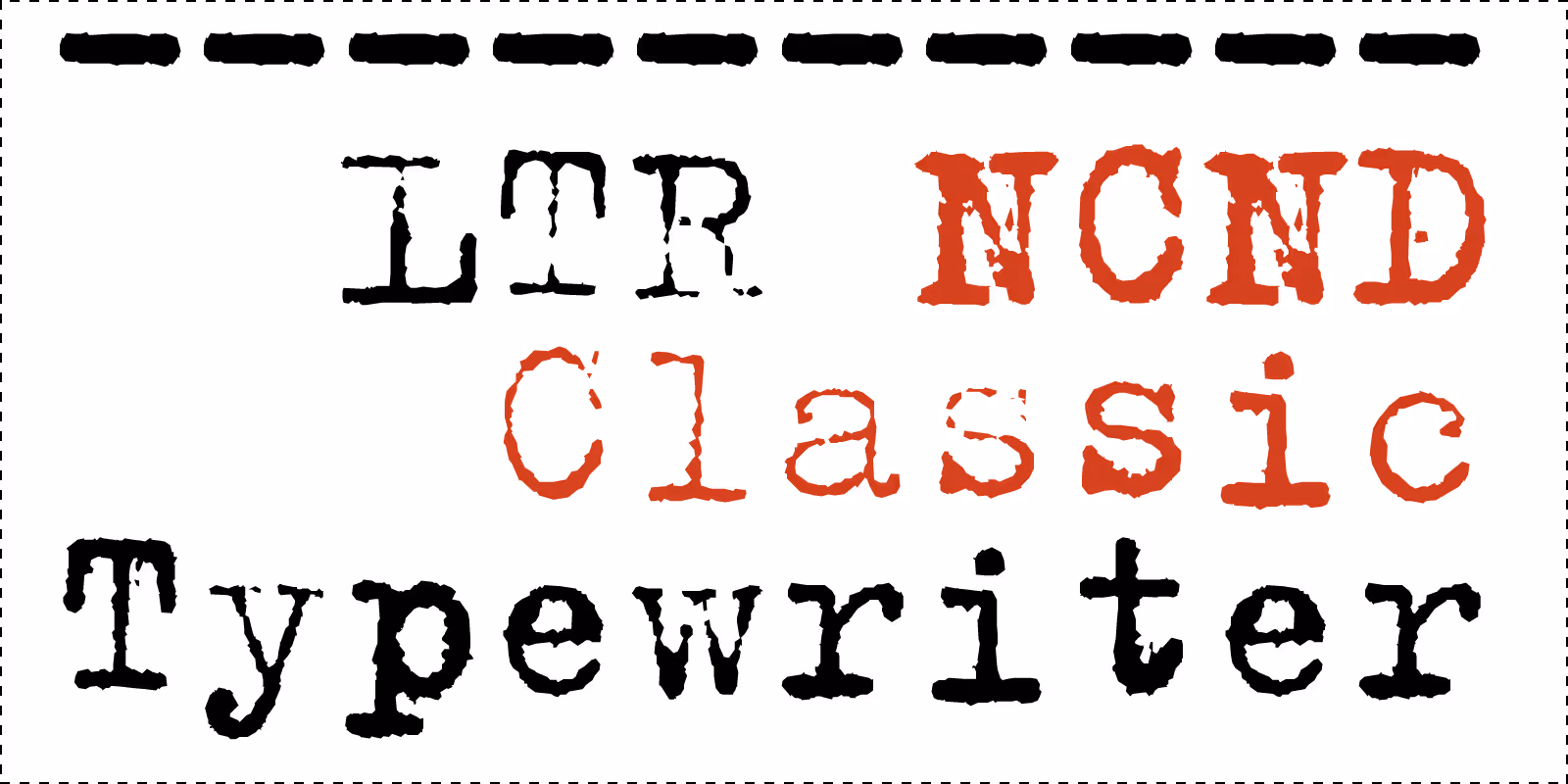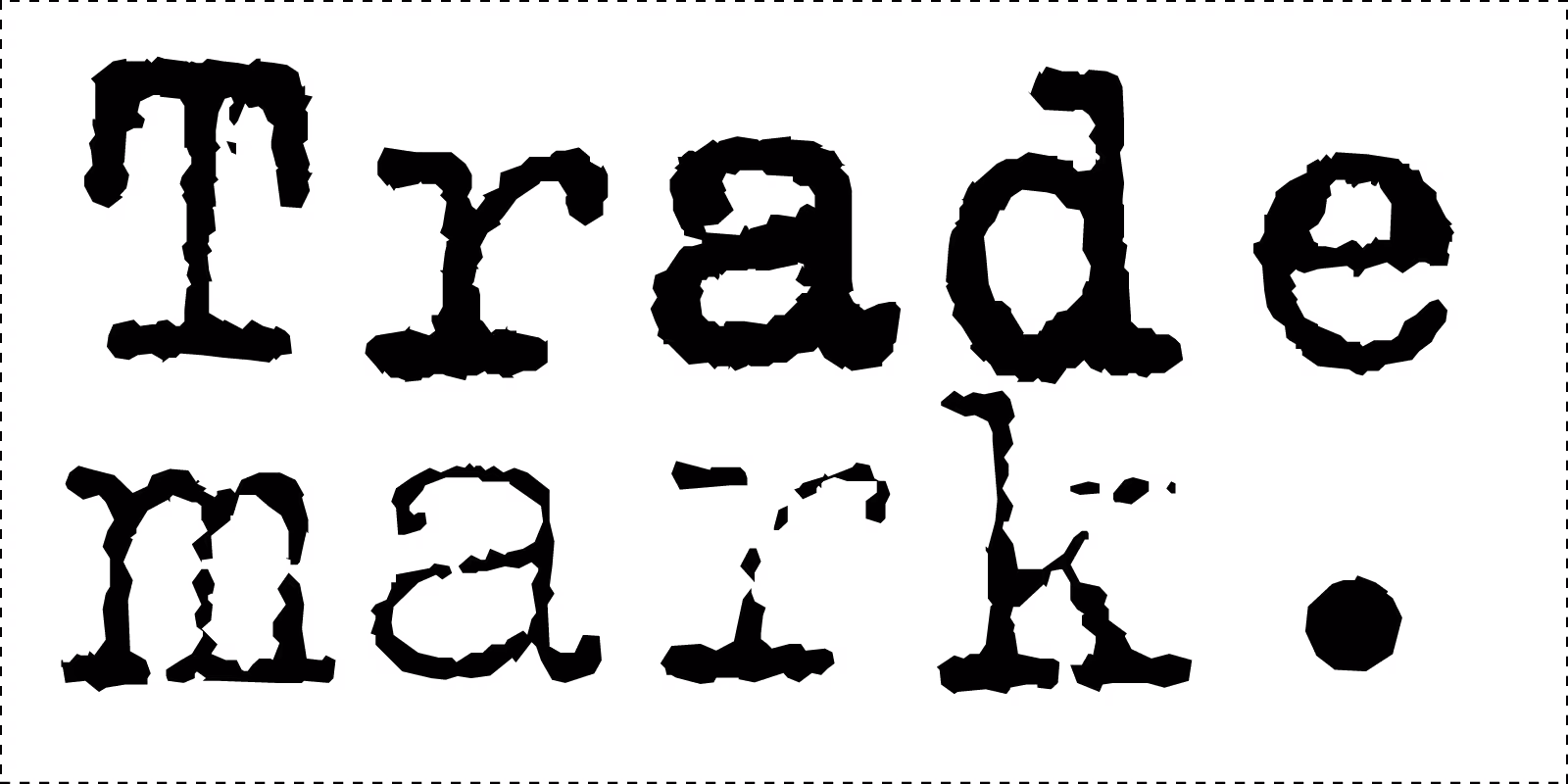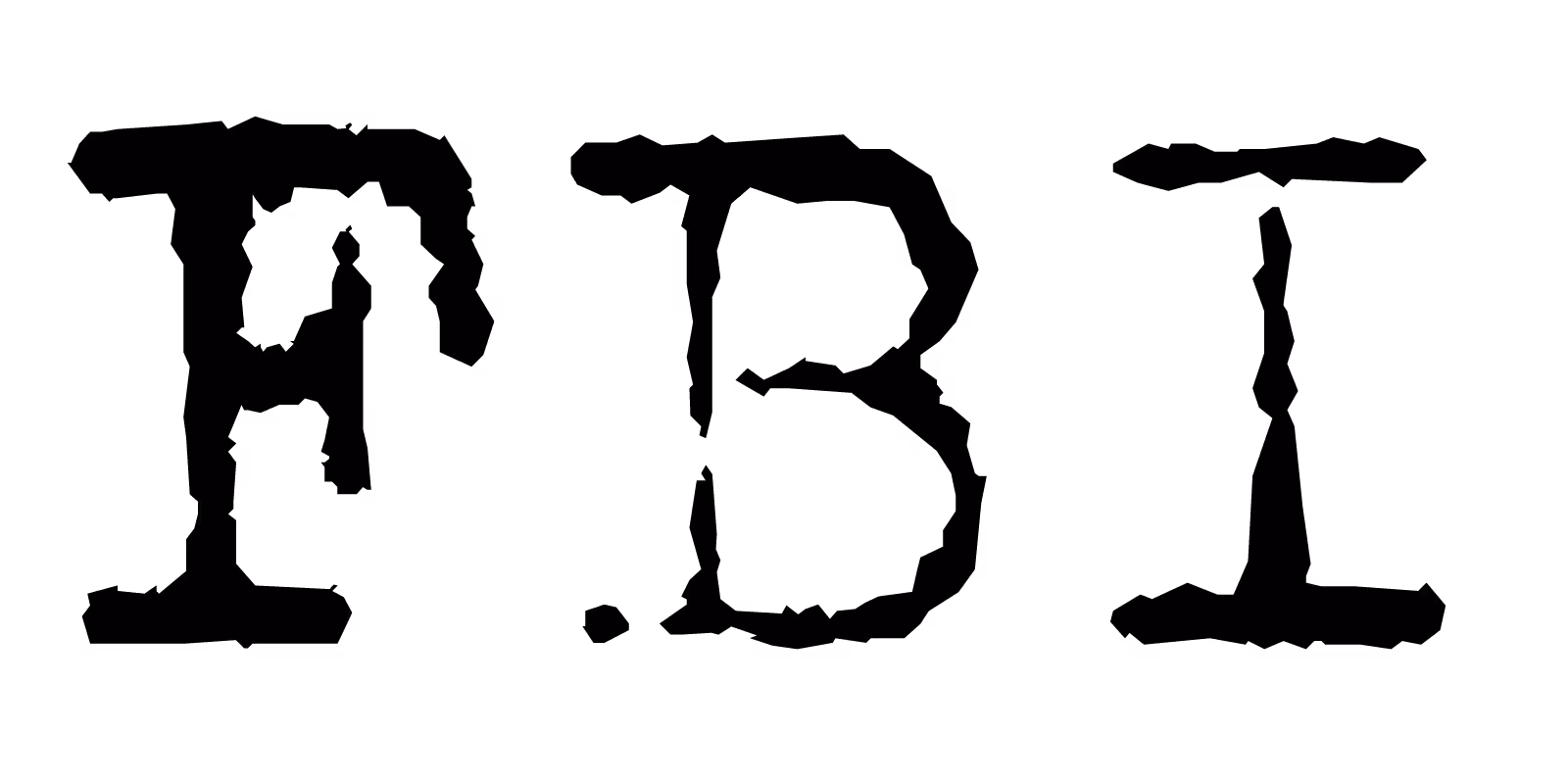
LTR NCND® Classic: the original dirty typewriter from Berlin. In Heavy and Light weights and a large character set that includes support for Greek and Cyrillic as well as an extended Latin. (Inspect below). Together with the Variable and Rough editions, NCND® is the distressed typewriter of choice.
You can ask “Is this the original dirty typewriter font we all know and love? And I say “Yes, absolutely!”
Classic dirty typewriter. Supports Latin, Greek and Cyrillic, but it has no variants, no super detailed textures: it is fine when used at typewriter sizes. If you need a close up: check NCND® Rough. NCND® Classic one has been reliably showing up for work for 36 years.
Only Light and Heavy! With some clever switching between the Light and Heavy styles you can achieve pretty much all the variation you need. Top: the Heavy, below the Light.
Did we mention these are great for making props? Just like the other editions of LTR NCND®. If you need typewritten material to appear on camera, the NCND® fonts are proven technology. If you need a bit more detail: have a look at LTR NCND® Rough.
Eye, №.7 Vol. 2, 1992. Cover design by Stephen Coates. Source: FontsInUse.com
Titling typewriter: titles Capote movie, United Artists, 2005 Source: FontsInUse.com.
One of the LTR NCND® editions